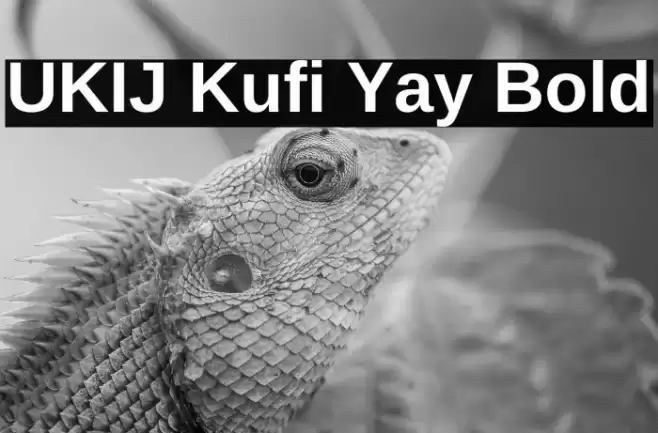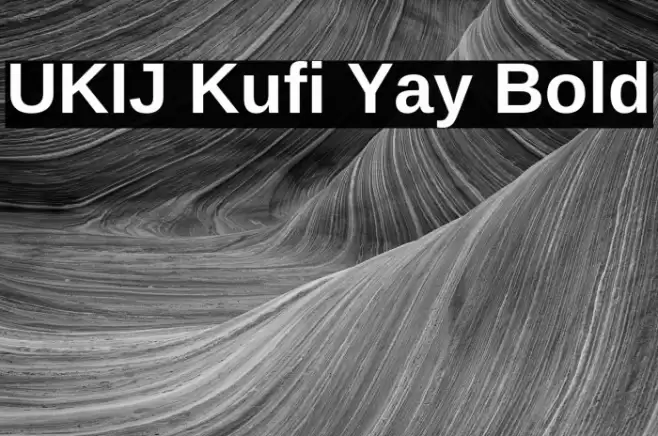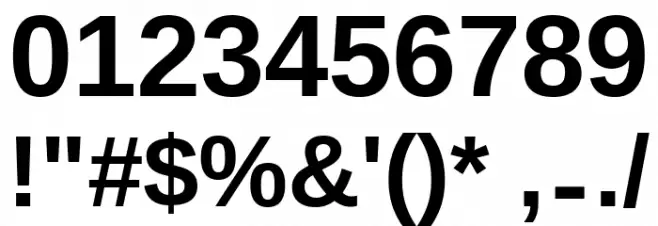
UKIJ Kufi Yay Bold Font
UKIJ Kufi Yay Bold Description
This font features a bold and modern sans-serif style with clean, geometric lines. The characters are evenly spaced, providing a balanced and uniform appearance. The uppercase letters are strong and assertive, while the lowercase letters maintain a consistent weight and structure. Numbers are clear and easy to read, making them suitable for various applications. The special characters are well-defined, adding versatility to the font's usage. Overall, this font exudes a contemporary and professional vibe, ideal for projects requiring clarity and impact.
A bold, modern sans-serif font with clean, geometric lines from Sans Serif fonts.
- Proposed Projects: Ideal for branding, advertising, headlines, and digital content where clarity and impact are essential.
- Use Case: Headlines, Logos, Digital content